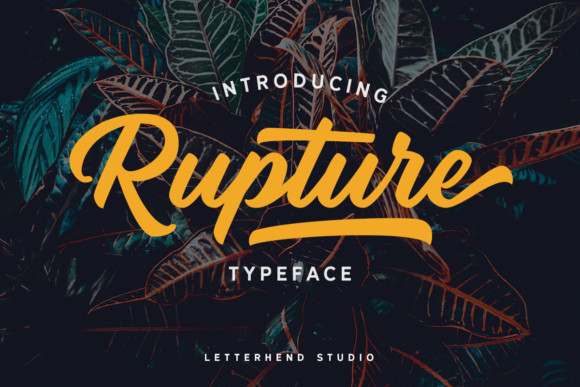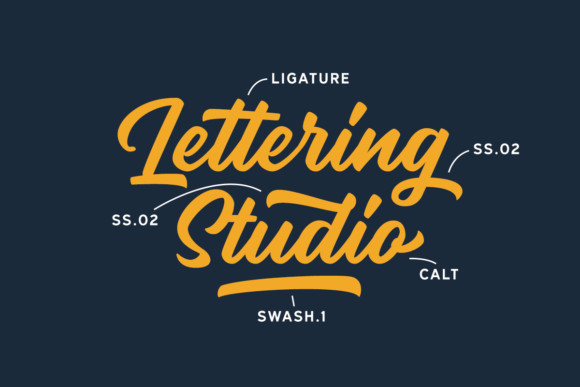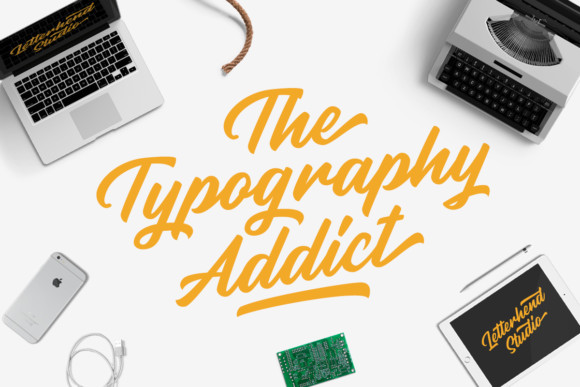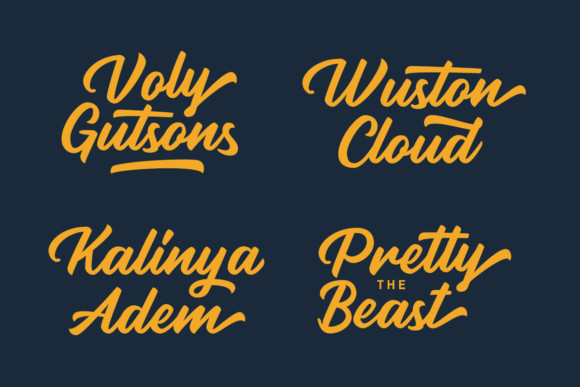
Rupture Bold Script Font
Say hello to Rupture Font. This is a playful font duo that includes a bold script and a hand-drawn sans-serif – already matched up and ready to be used together for your next design! It’s designed and shared by letterhend. It’s a bold and modern font duo that smoothly combines two stand-out typefaces! It’s perfectly suited to signature, stationery, logo, typography quotes, magazine or book cover, website header, clothing, branding, packaging design and more.